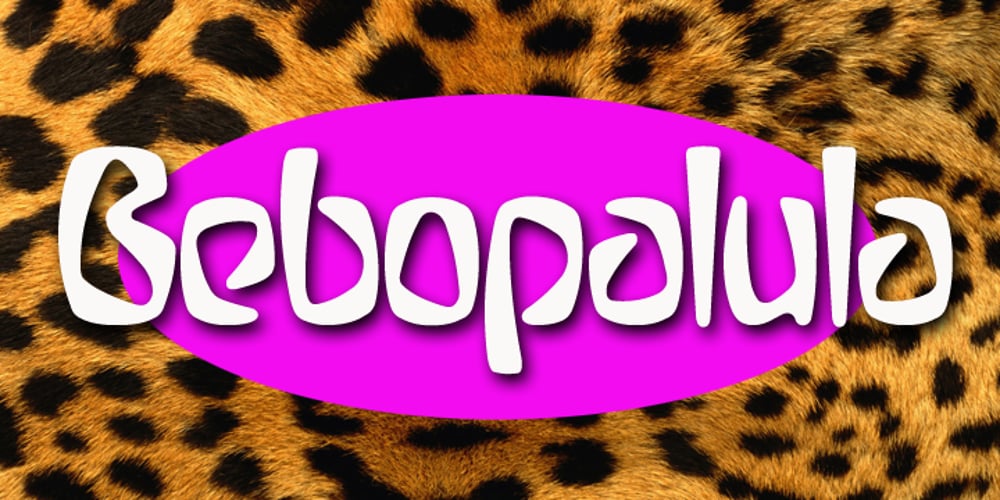
Bebopalula
Bebopalula font
Bebopalula Font Family was designed by Keith Tricker and published by Studio K. Bebopalula contains 6 styles and family package options. No prizes for guessing this font family was inspired by the 1950s – the sounds (Buddy, Eddie, Elvis), the styles (polka dots, petticoats and Dior’s New Look), and the kitsch, from furry dice above the dashboard to plaster ducks over the mantlepiece! A particular point of reference is the furnishings and fabrics of the Fifties (with their distinctive kidney shapes and angular curves) as showcased in the Festival of Britain 1951. See also my other fun fonts Barrowboy, Calypso and Pier Arcade.